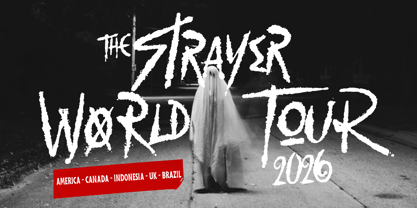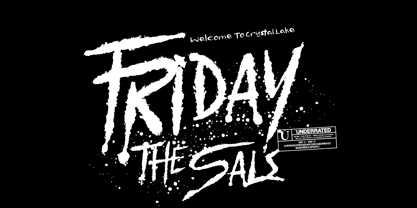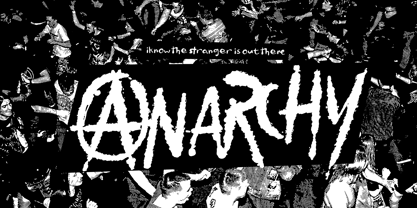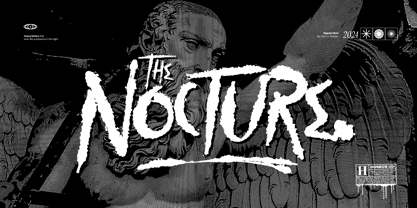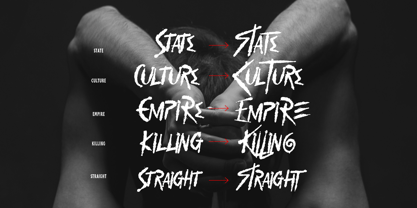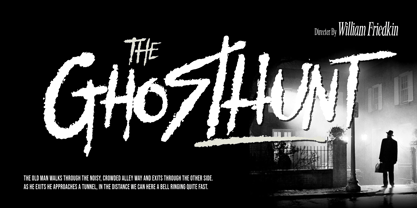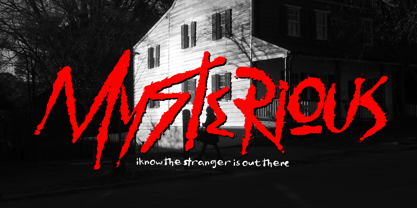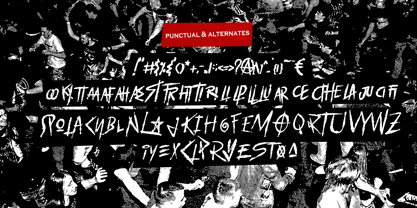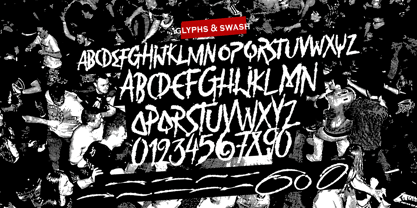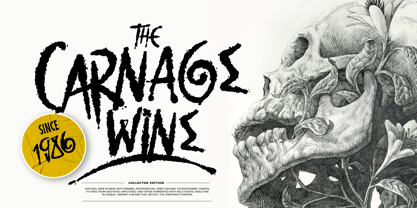
Fd Nocture
The Fd Nocture Font Family was designed by Ramandhani Nugraha and published by Fortunes Co. Fd Nocture contains 2 styles and family package options.
A horror typeface evokes fear and tension through jagged edges, distorted shapes, and unsettling designs. It often mimics blood splatters, scratch marks, or decayed textures, creating an eerie atmosphere. The letters feel unpredictable, as if they could shift or disappear. Perfect for horror stories, posters, or films, these fonts instill a sense of dread and suspense with every word.
• Lowercase & Uppercase
• Ligatures (oo ky tt aa af ah ae St Fr ht ti ri li lp ll lu ar ct ce he la)
• Stylistic Alternates
• Numbering